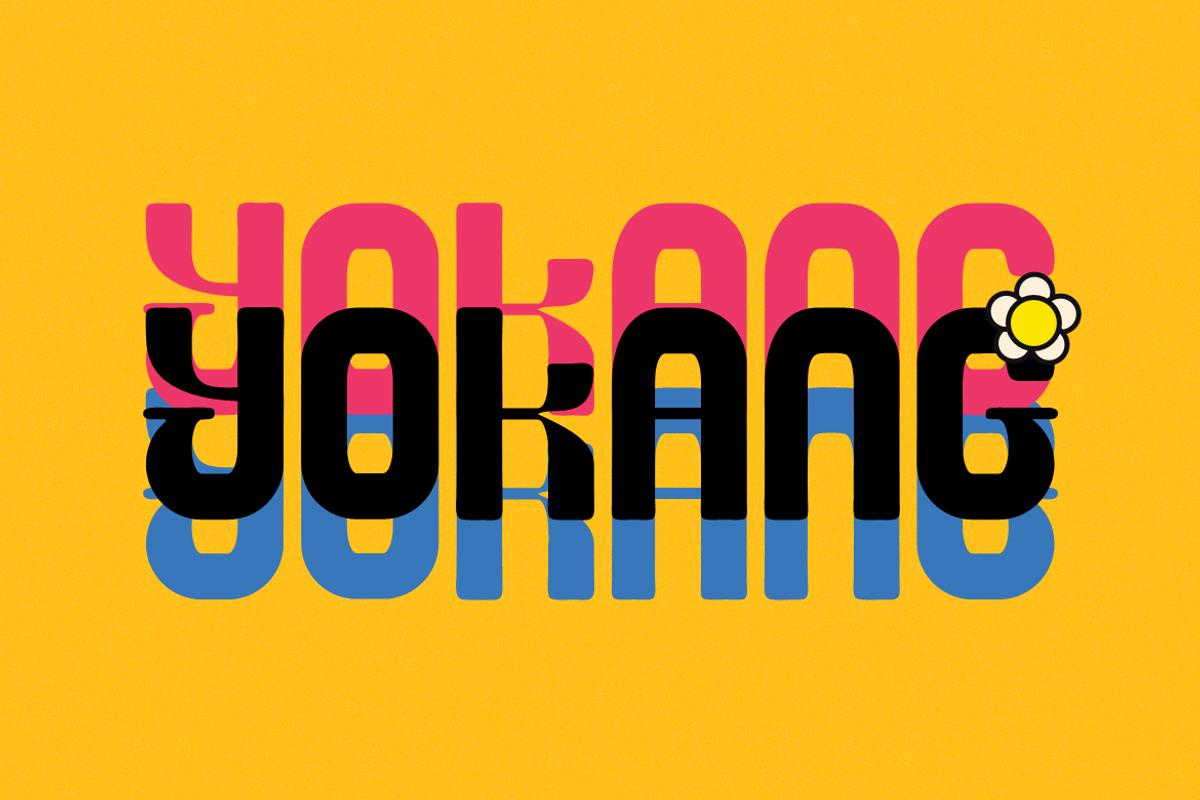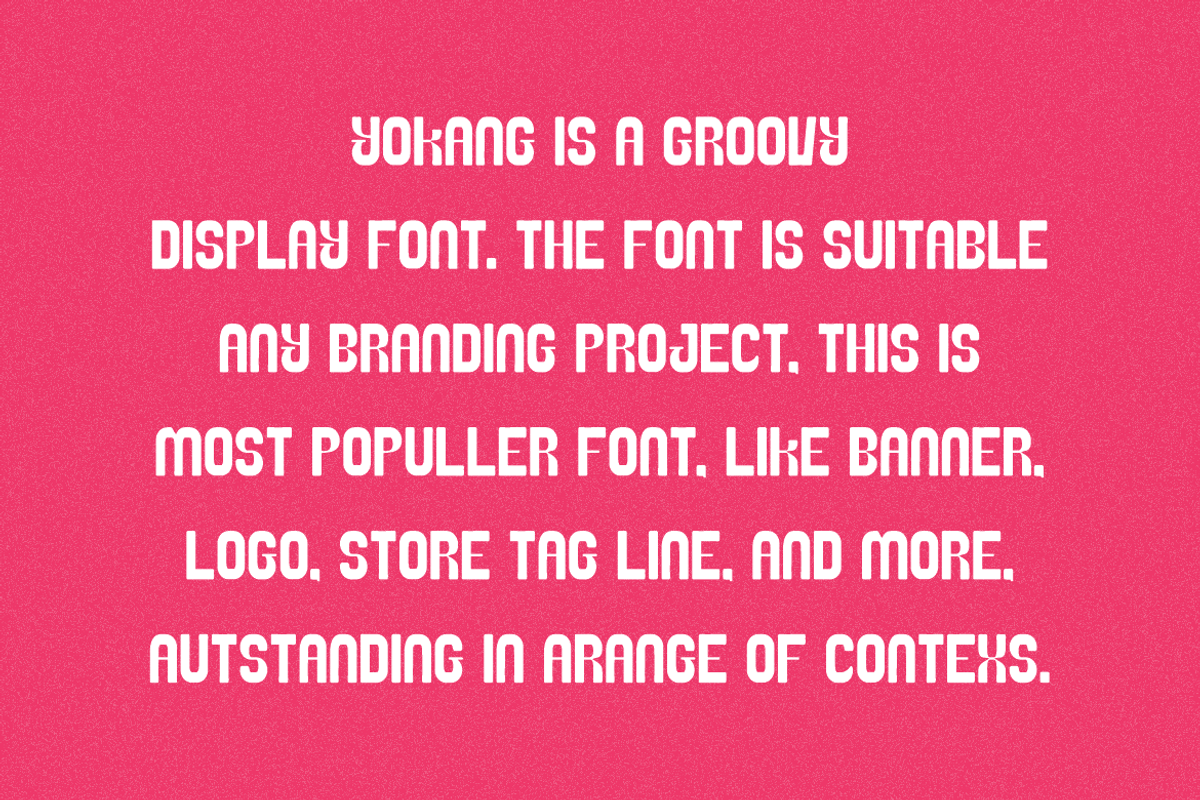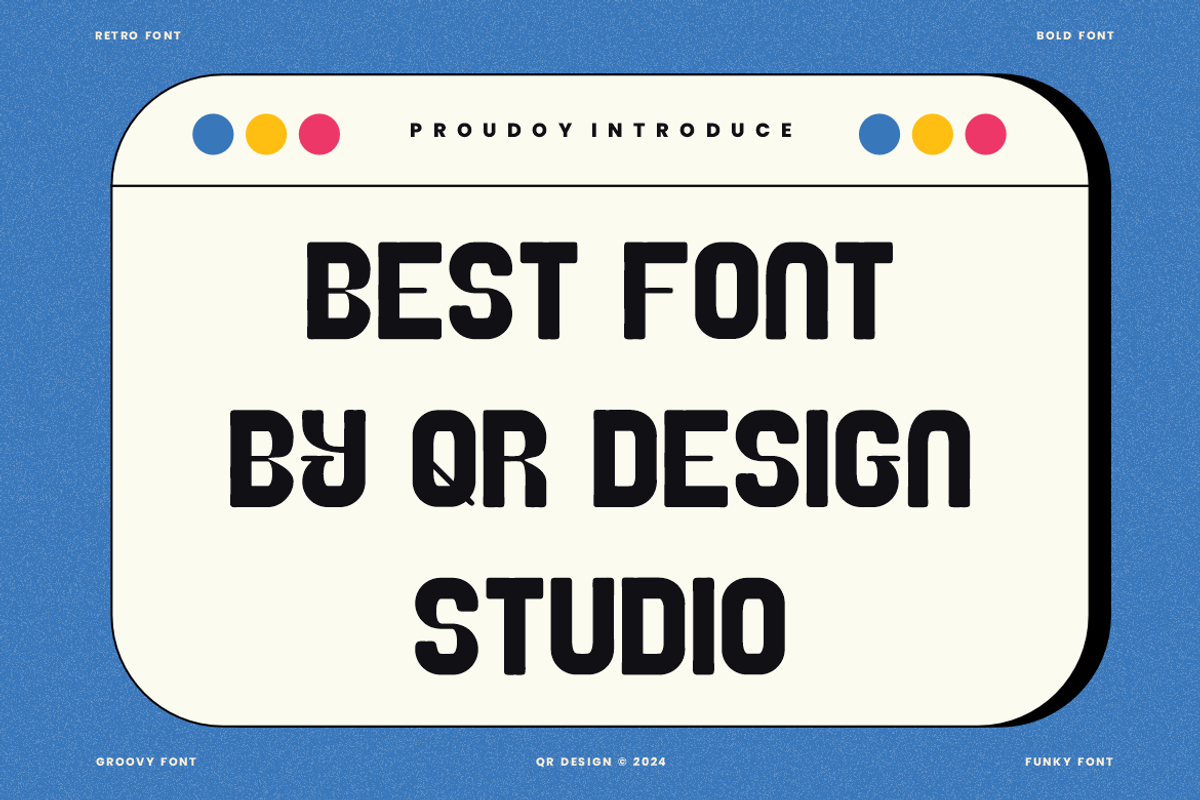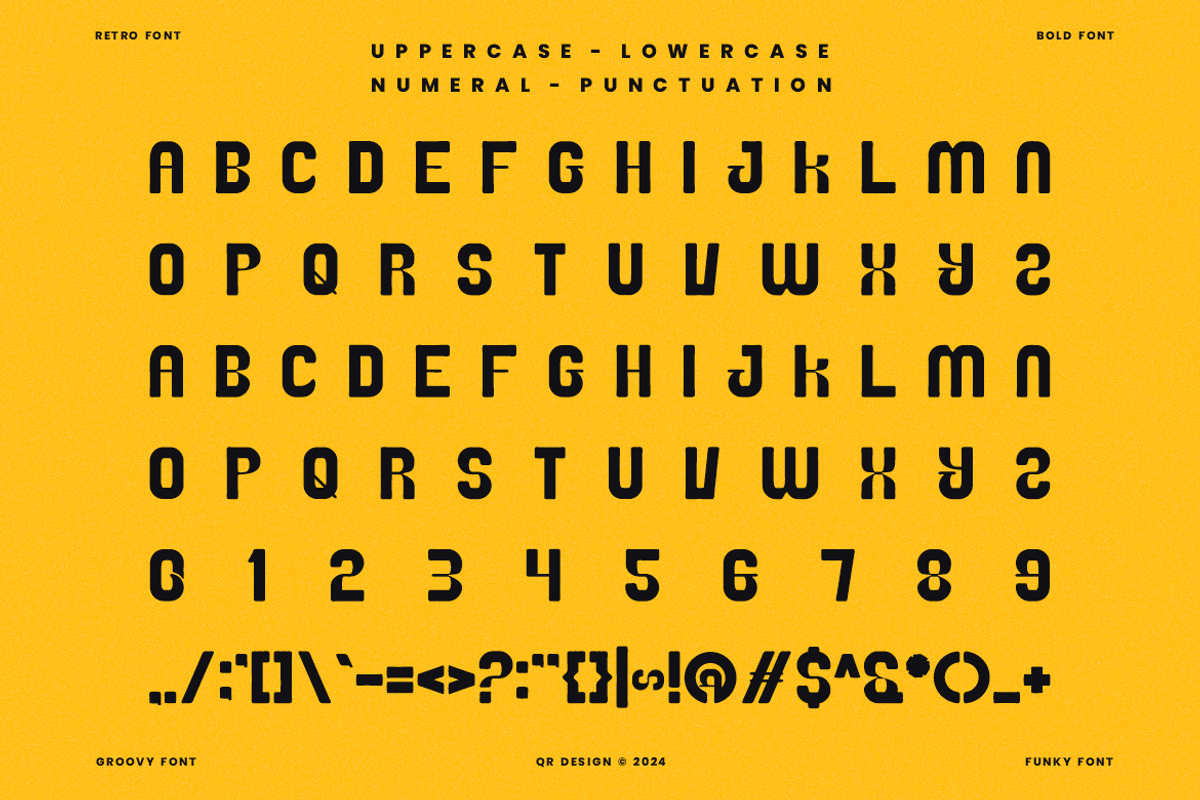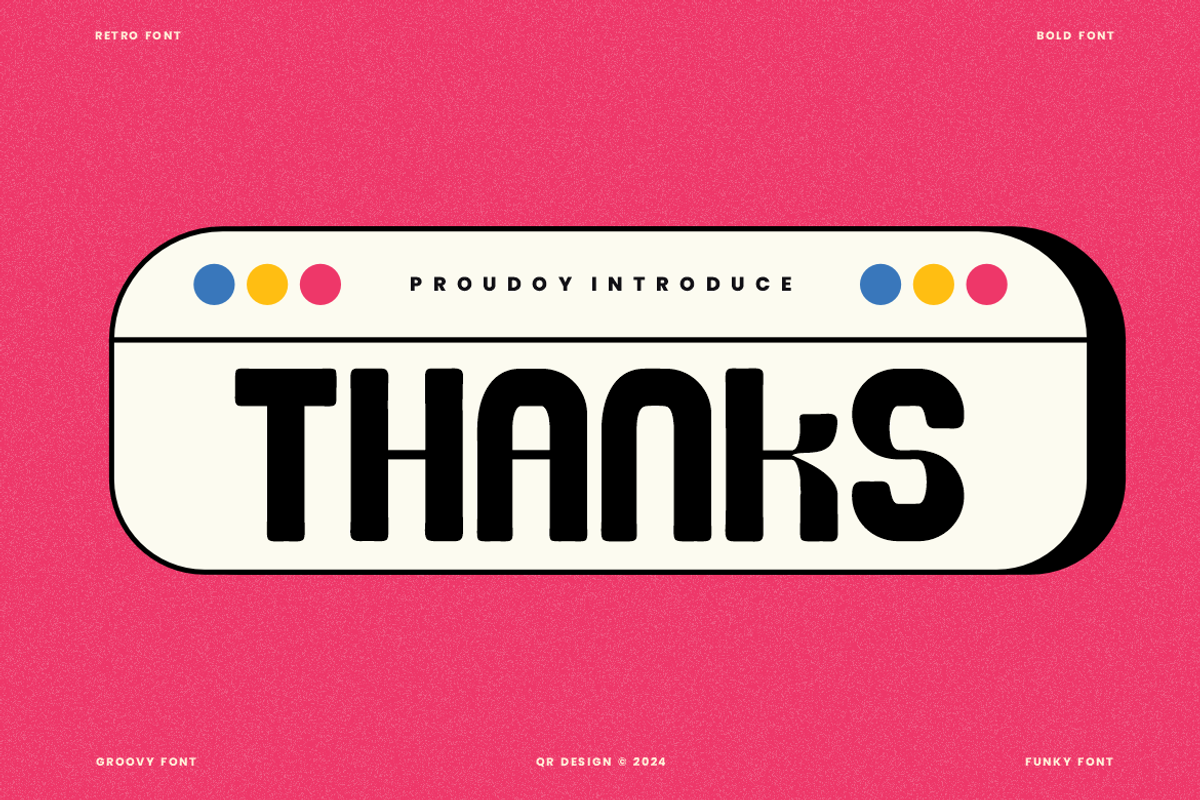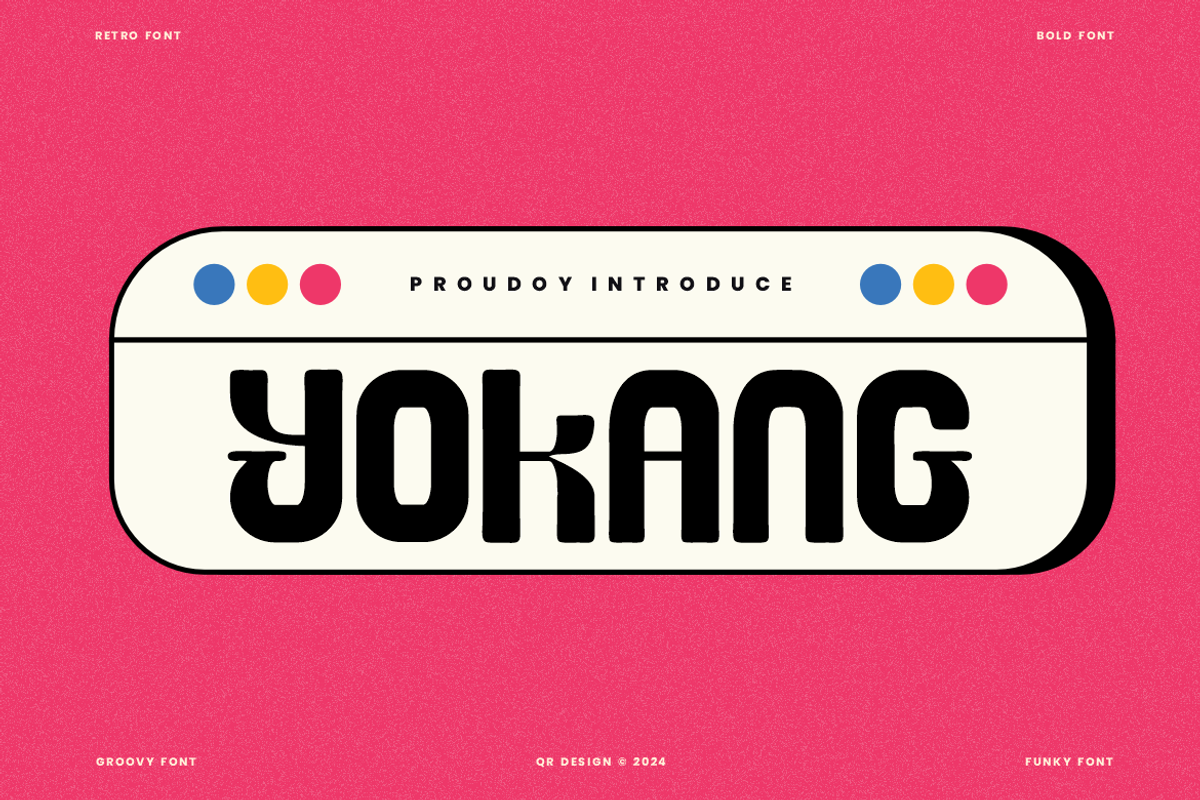
Yokang - Groovy Font
Yokang - Groovy Font is a bold and authentic display font. The font is suitable for any branding project like poster, logo, sport, and many more. Outstanding in a wide range of contexts.